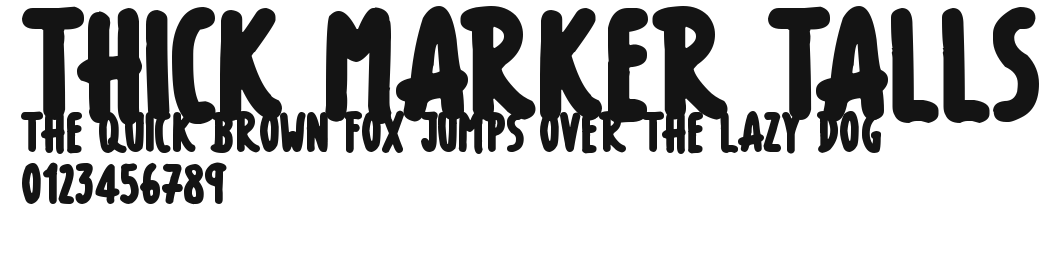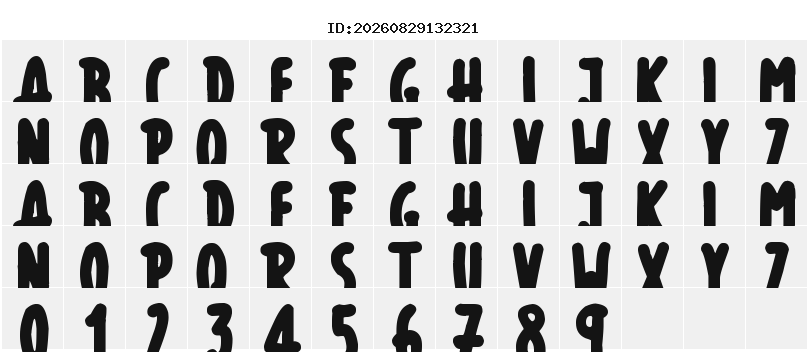
• Font Name: Thick Marker Talls
• Font ID: Thick Marker Talls:Version 1.00
• Full Font Name: Thick Marker Talls
• Version: Version 1.00 September 12, 2016, initial release
• PostScript Name: ThickMarkerTalls
• Character Count: 118
• Description: This font was created using Scanahand from High-Logic.com
Thick Marker Talls.ttf is a modern, elegant sans-serif font designed for ultimate readability and visual harmony. Perfect for branding, headlines, web design, and print materials.